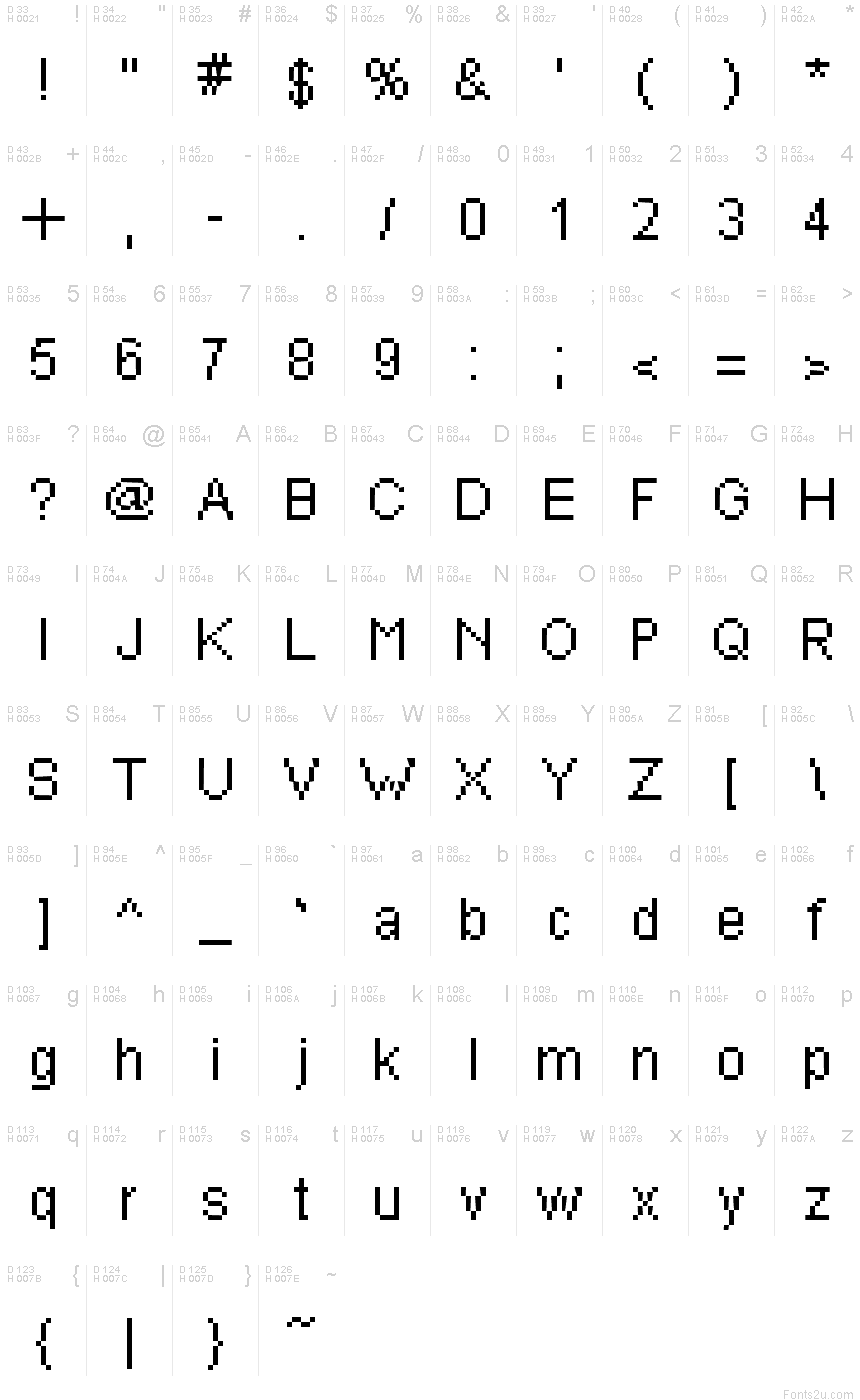
C&C Red Alert [LAN]
These 2 Command & Conquer: Red Alert Fonts look best in size 10pt.
Do you know the fonts of the Command & Conquer classics such as C&C: Red Alert?
My plans were to firstly re-create these fonts for a personal use, for my C&C website and later for the C&C community.
My "C&C: Red Alert fonts (TrueType)" are minifonts or also called pixelfonts.
Pixelfonts are very small but in a way amazingly beautiful looking and fascinating fonts.
These kind of fonts are mostly best by using them in sizes between 8pt and 12pt.
It depends by their developer's thoughts and usage.
I personally commend using my C&C: Red Alert fonts in a size of 10pt!
This size is also the original one which is used within Command & Conquer and C&C: Red Alert.
These "C&C: Red Alert fonts (TrueType)" are those being used inside the C&C: Red Alert game.
Some character additions and updates to my fonts were done as well.
Please notice that a lot of signs, symbols, and special characters are still missing, but will be added in future.
Command & Conquer and Command & Conquer: Red Alert are still popular RTS games, developed by Westwood.
Both games were released in year 1995 and 1996.